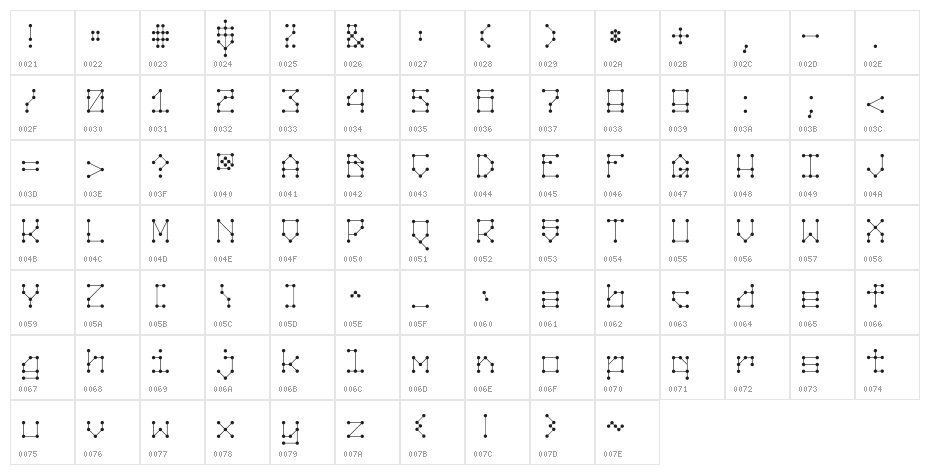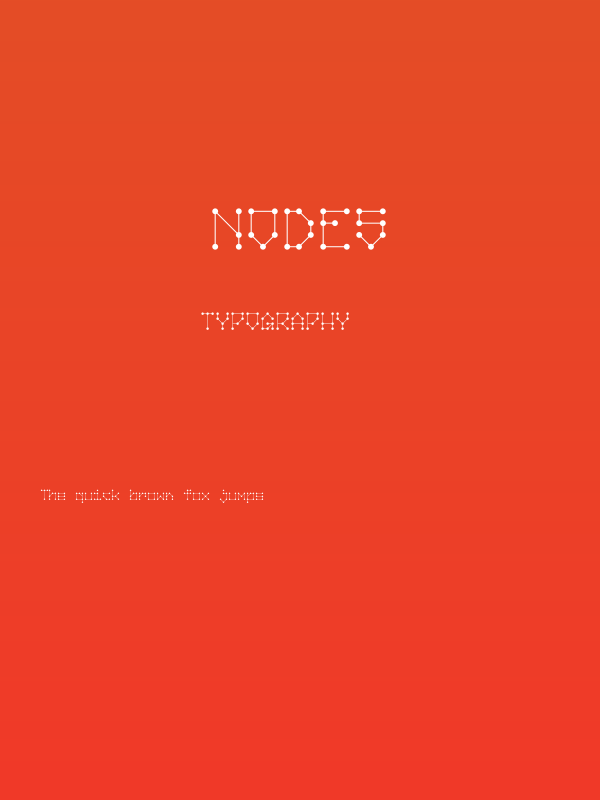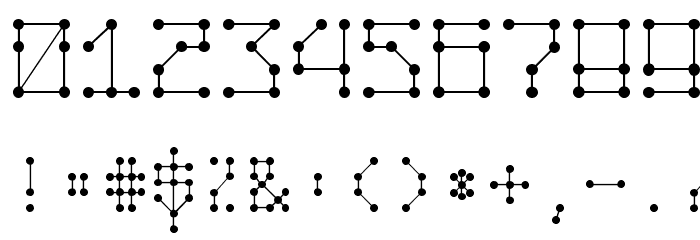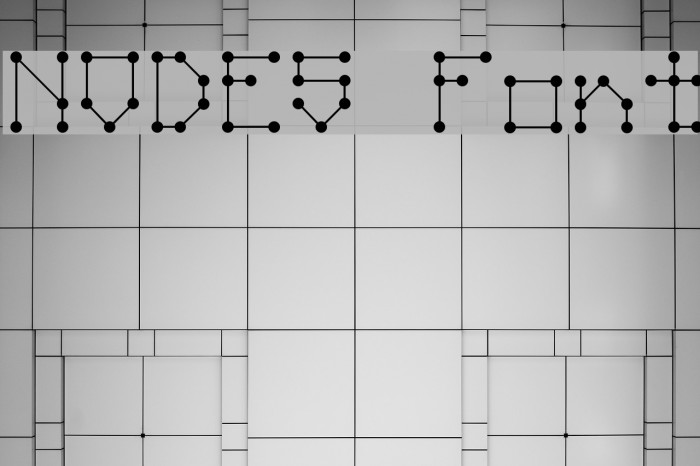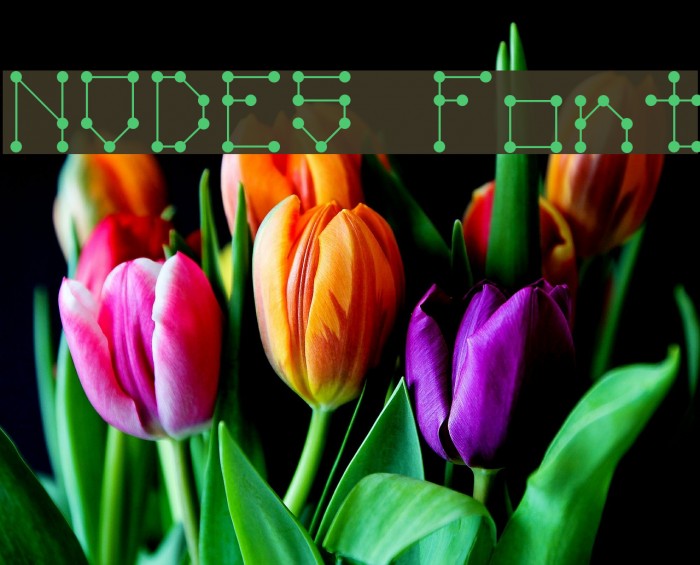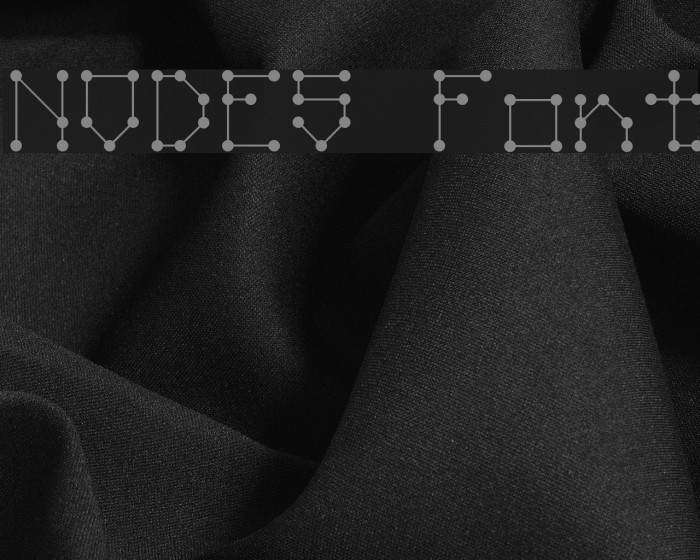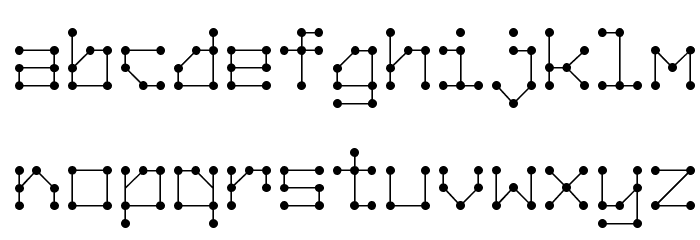
NODES Font
NODES Description
This font features a unique design where each character is constructed using a series of dots connected by lines, resembling a network of nodes. The geometric structure gives it a modern and technological feel, making it stand out with its distinctive style. The uppercase and lowercase letters maintain a consistent pattern, with each character formed by a precise arrangement of dots and lines. Numbers and special characters follow the same design principle, ensuring uniformity across the font. The overall appearance is clean and structured, ideal for projects that require a futuristic or digital aesthetic.
| Proposed Projects | Ideal for tech-related branding, digital art projects, futuristic designs, and educational materials focusing on networks or connectivity. |